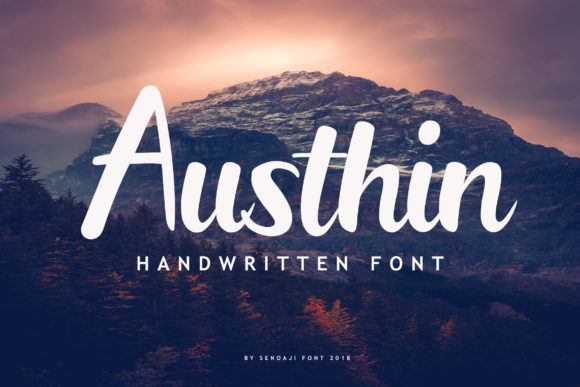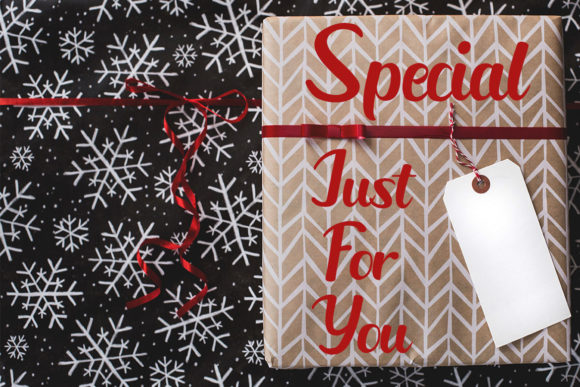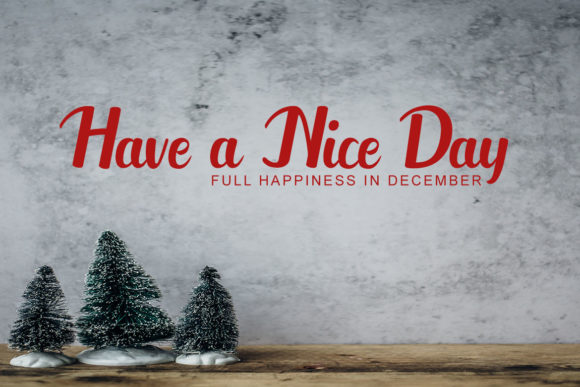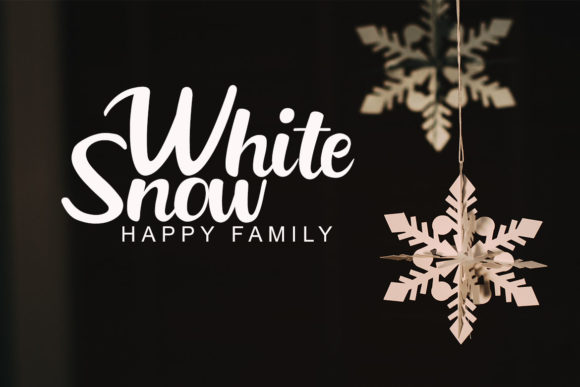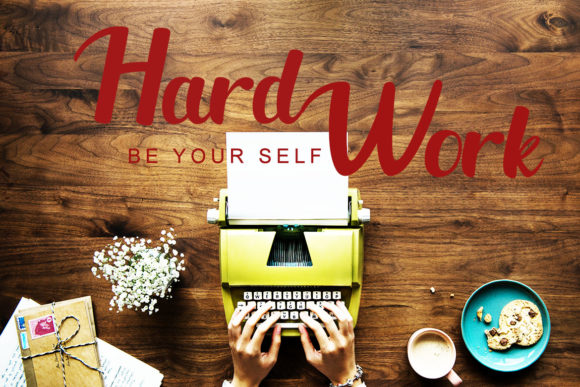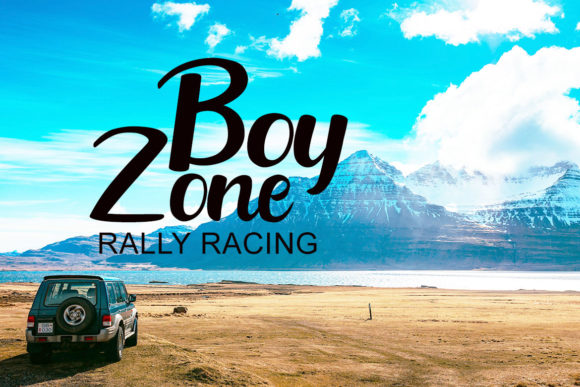
Austhin Font
About Austhin Font
Introducing The Austhin, a modern handmade font designed to make a bold statement with its strong letters and dynamic appearance. This font is not just a typeface; it’s a design asset crafted to elevate any project, ensuring it stands out with a contemporary and impactful aesthetic.
The bold letters of The Austhin are the key to its visual strength, making it an excellent choice for designs that require a powerful and commanding presence. Whether you’re creating logos, branding materials, posters, or any other project where visibility is crucial, The Austhin delivers with its bold and eye-catching style.
The dynamic look of The Austhin adds a sense of energy and movement to your designs, making it versatile for various creative applications. From attention-grabbing headlines to social media graphics that demand engagement, this font ensures your message is delivered with impact.
In branding, The Austhin establishes a modern and memorable visual identity. For posters and promotional materials, the font’s boldness ensures that your message is conveyed with maximum visibility. Logos created with The Austhin exude a contemporary and dynamic style, setting your brand apart.
In summary, The Austhin is not just a font; it’s a design powerhouse that brings boldness and dynamism to your creative projects. Embrace its modern handmade style for logos, branding, posters, and more, and let The Austhin make your designs stand out with its powerful and eye-catching presence.